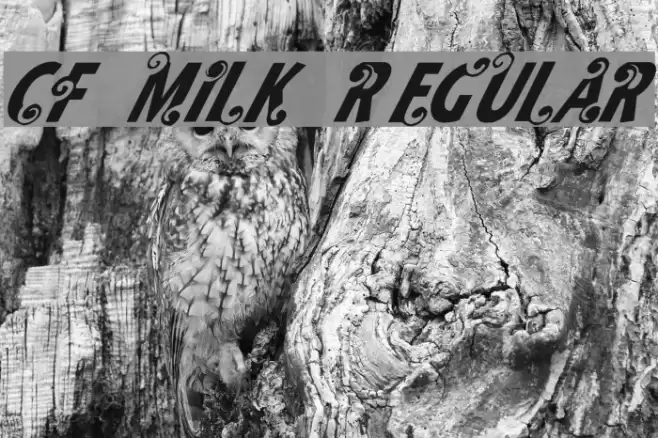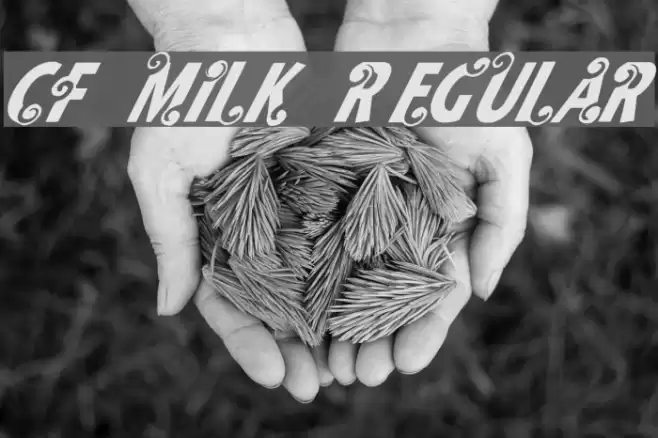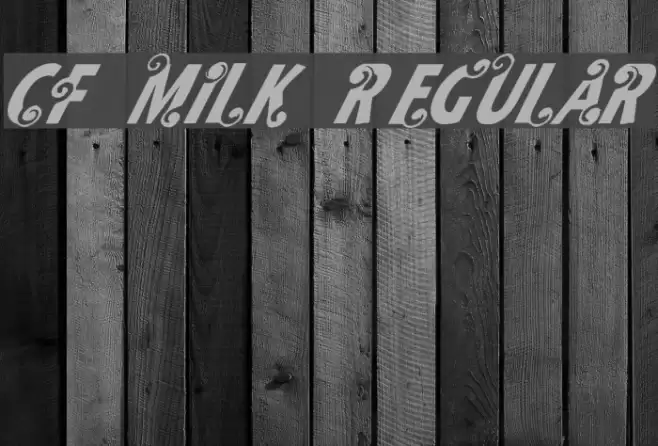
CF Milk Regular Font
CF Milk Regular Description
This font features a bold and decorative style with a unique flair. Each character is adorned with intricate swirls and curls, adding a whimsical touch to the overall design. The letters are bold and have a strong presence, making them suitable for eye-catching displays. The numbers and special characters maintain the same decorative elements, ensuring consistency throughout the typeface. The font's playful and artistic nature makes it ideal for creative projects that require a distinctive and memorable look.
A bold, decorative font with whimsical swirls and curls from Uncategorized fonts.
- Proposed Projects: Ideal for posters, branding, packaging, and creative invitations.